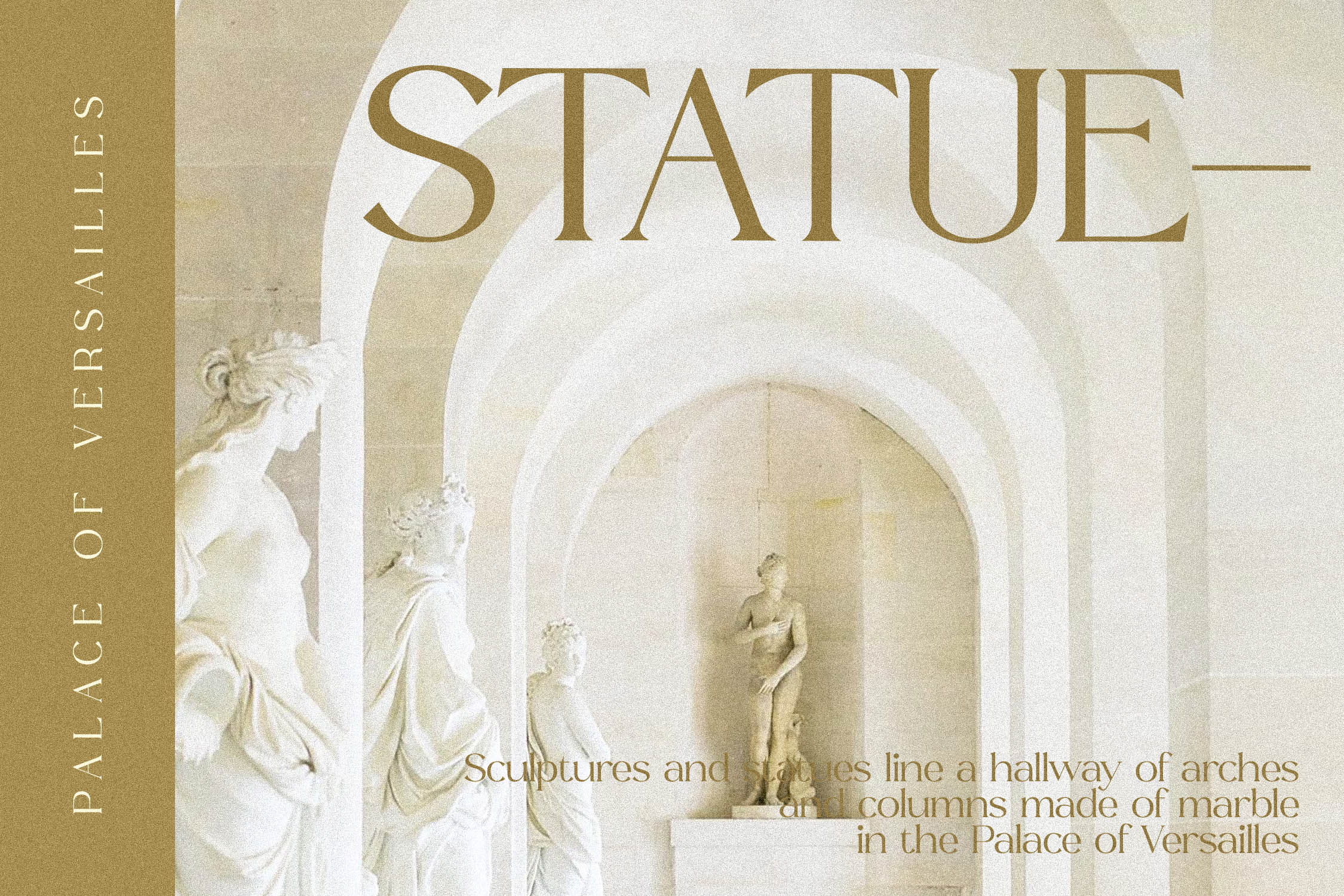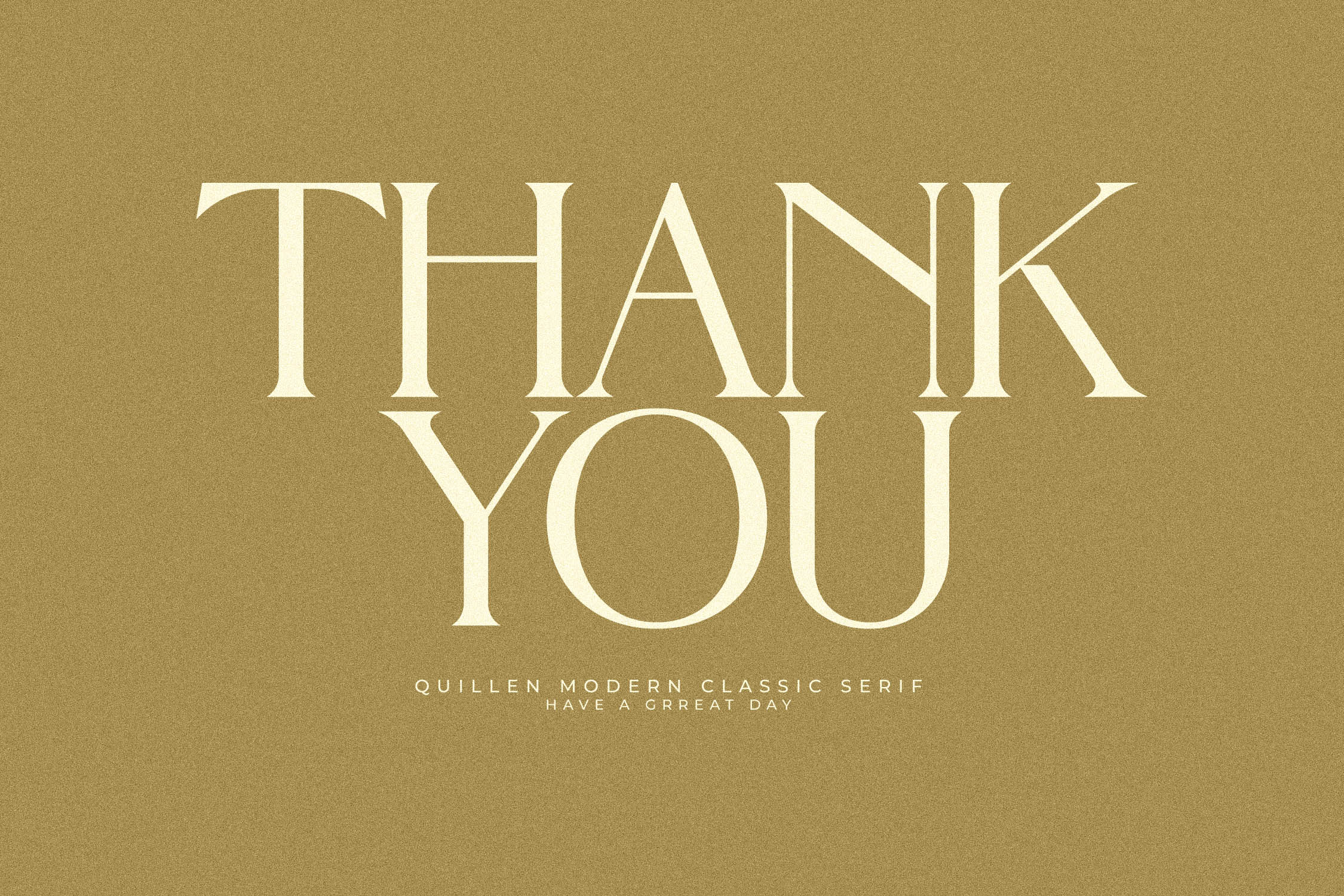
Quillen Font
Quillen Serif Font is a serif modern and classic typeface that has own unique style & modern look. This typeface is perfect for an elegant & luxury logo, book or movie title design, fashion brand, magazine, clothes, lettering, quotes, and so much more.